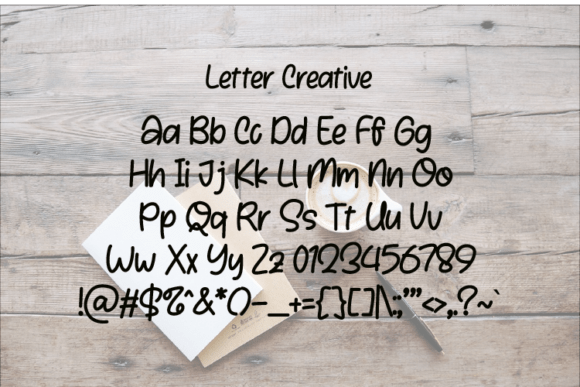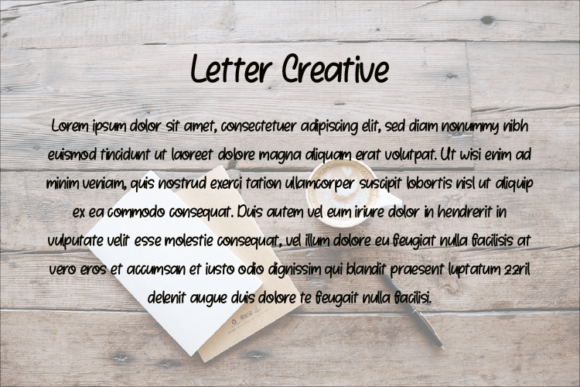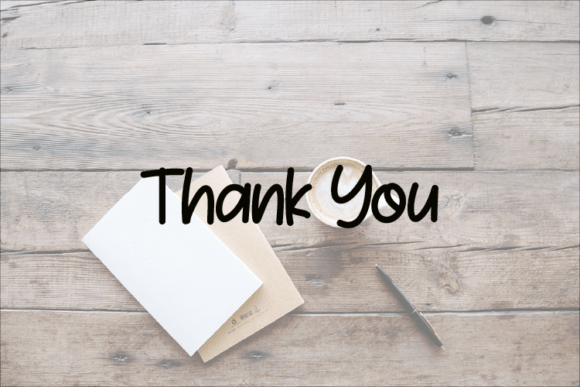
Introduction to Letter Creative Font
Letter Creative is a fun and playful handwritten font that brings a personal, friendly tone to any design.
With rounded edges and a relaxed flow, itโ€™s perfect for creative projects like greeting cards, planners, classroom materials, journals, and social media graphics Its casual style mimics natural handwriting, offering a sense of warmth and approachability.
Key Features of Letter Creative Font
Why Choose Letter Creative Font?